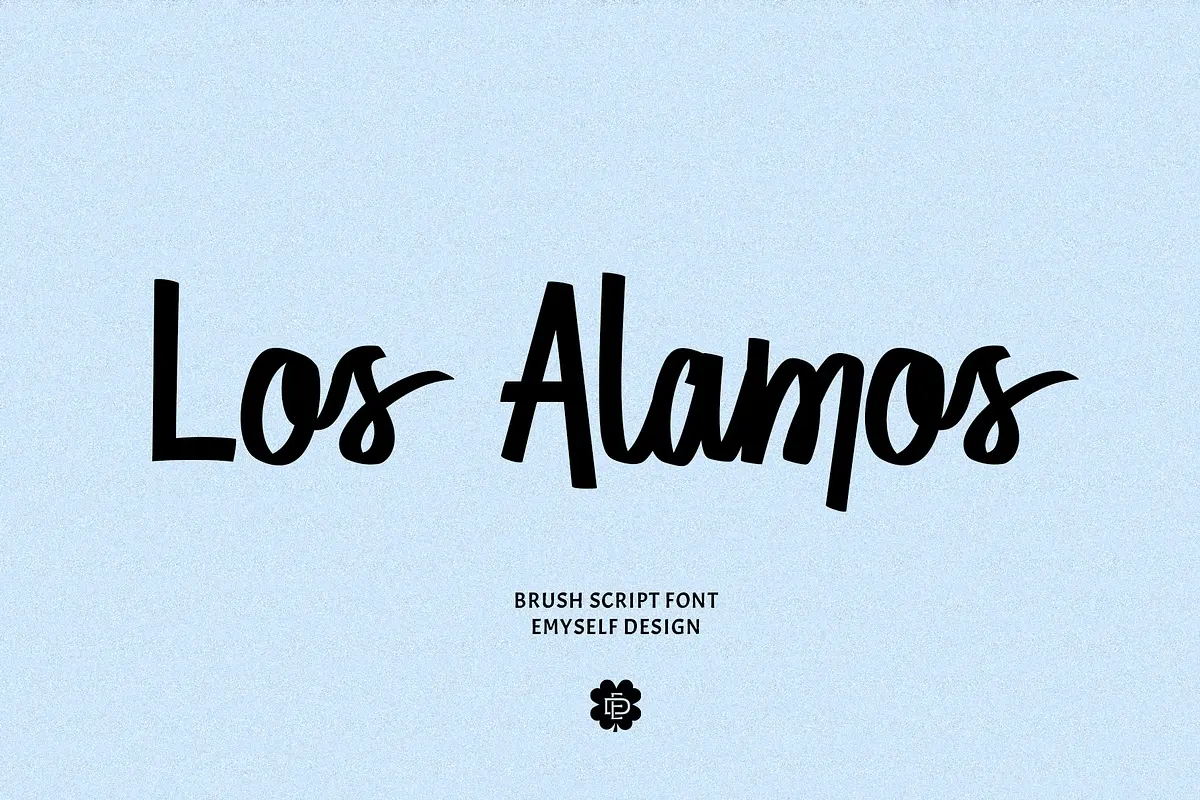
ED Los Alamos Free Download
ED Los Alamos Font Free Download
Bring bold, adventurous style to your designs with ED Los Alamos Font Free Download. This unique display font features strong, angular letterforms with a rugged, Western-inspired aesthetic, making it perfect for branding, logos, posters, and designs that need a sense of boldness and personality.
ED Los Alamos combines striking letterforms with a vintage feel, making it ideal for projects that aim to evoke a sense of adventure, exploration, and the untamed spirit. It includes uppercase and lowercase letters, numerals, punctuation, and multilingual support, offering flexibility for testing creative and powerful layouts.